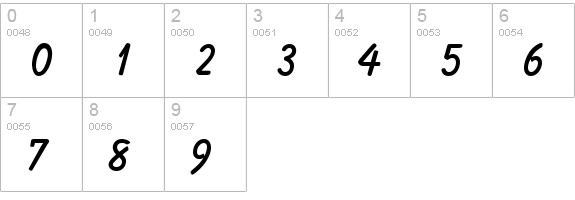
OPTIBalloon-Bold is a strong, high-contrast variant in the OPTIBalloon typeface family \xE2\x80\x94 well suited to headlines, attention-grabbing titles, and strong calls-to-action.
Introducing OPTIBalloon-Bold font, a modern and dynamic typeface that exudes confidence and creativity. With its bold and eye-catching design, OPTIBalloon-Bold is perfect for making a statement in your projects. This versatile font is ideal for headlines, logos, posters, and more, adding a touch of flair and personality to your designs. The best part? OPTIBalloon-Bold is available for free download at FontsMarket.com. Whether you're a designer looking to add a unique touch to your work or a business owner wanting to make a bold impression, this font has you covered. Don't miss out on the opportunity to elevate your designs with OPTIBalloon-Bold - download it today and let your creativity soar!